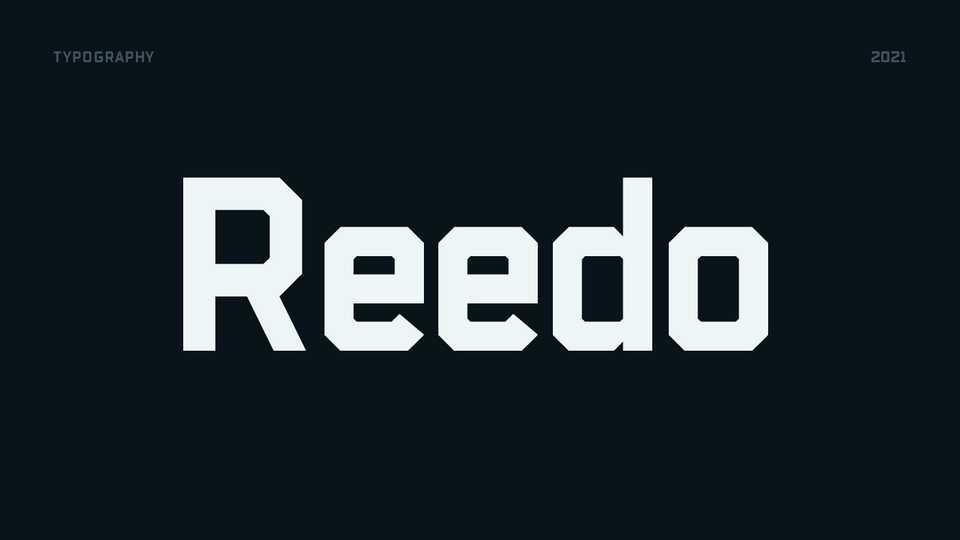
Download Reedo font, a bold cut-off typeface with a modern twist. Unique and playful Reedo font family style will help you decorate your design.
Designer: Artyom Levanov